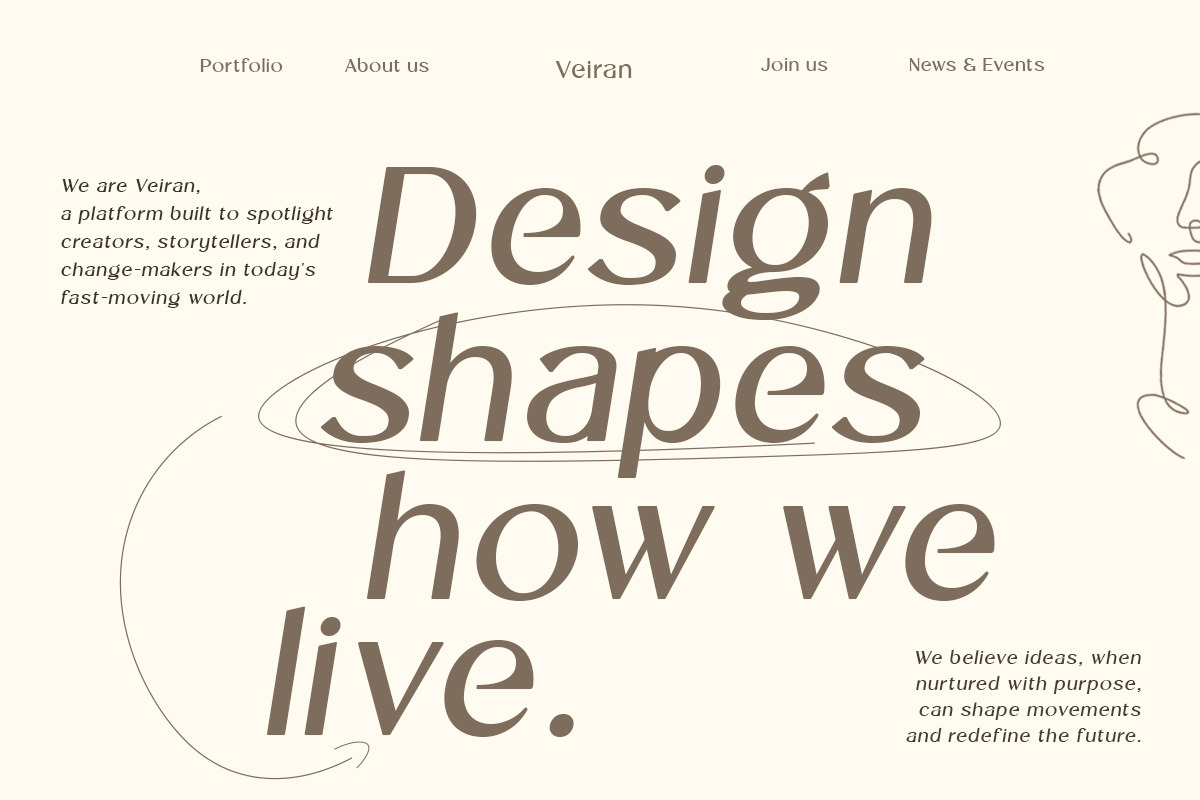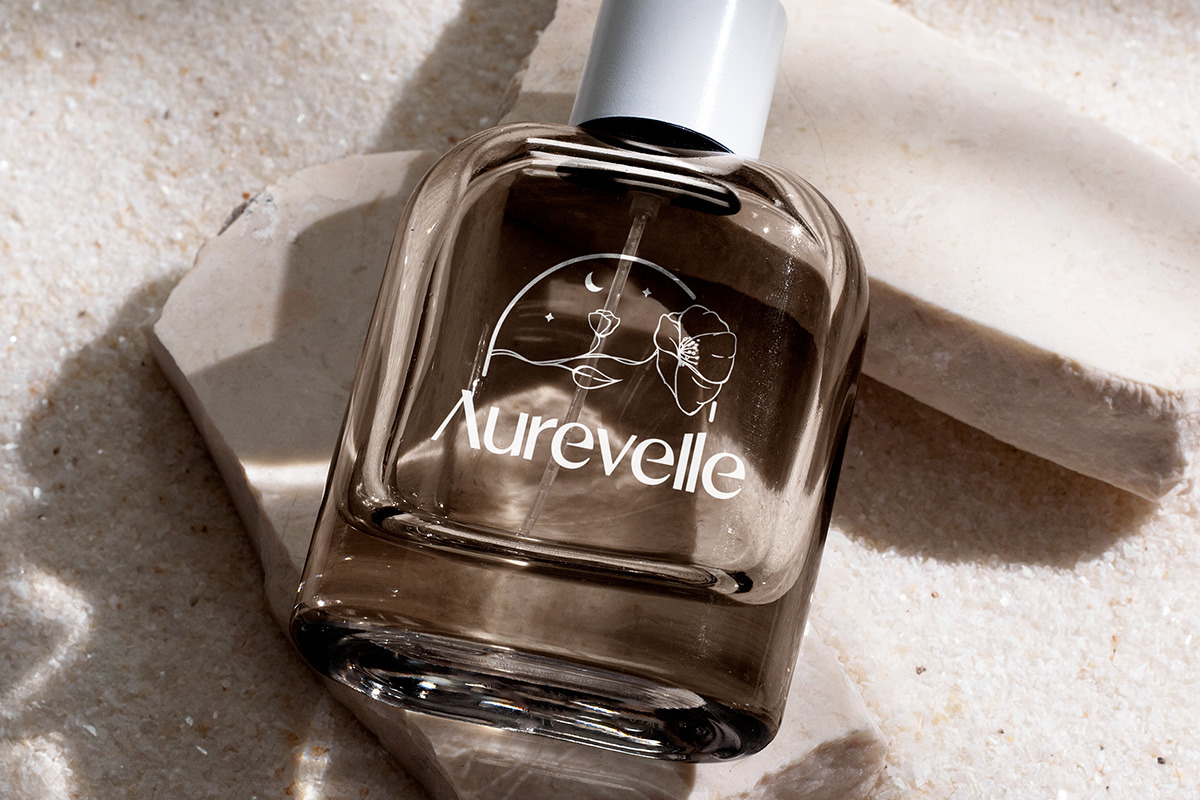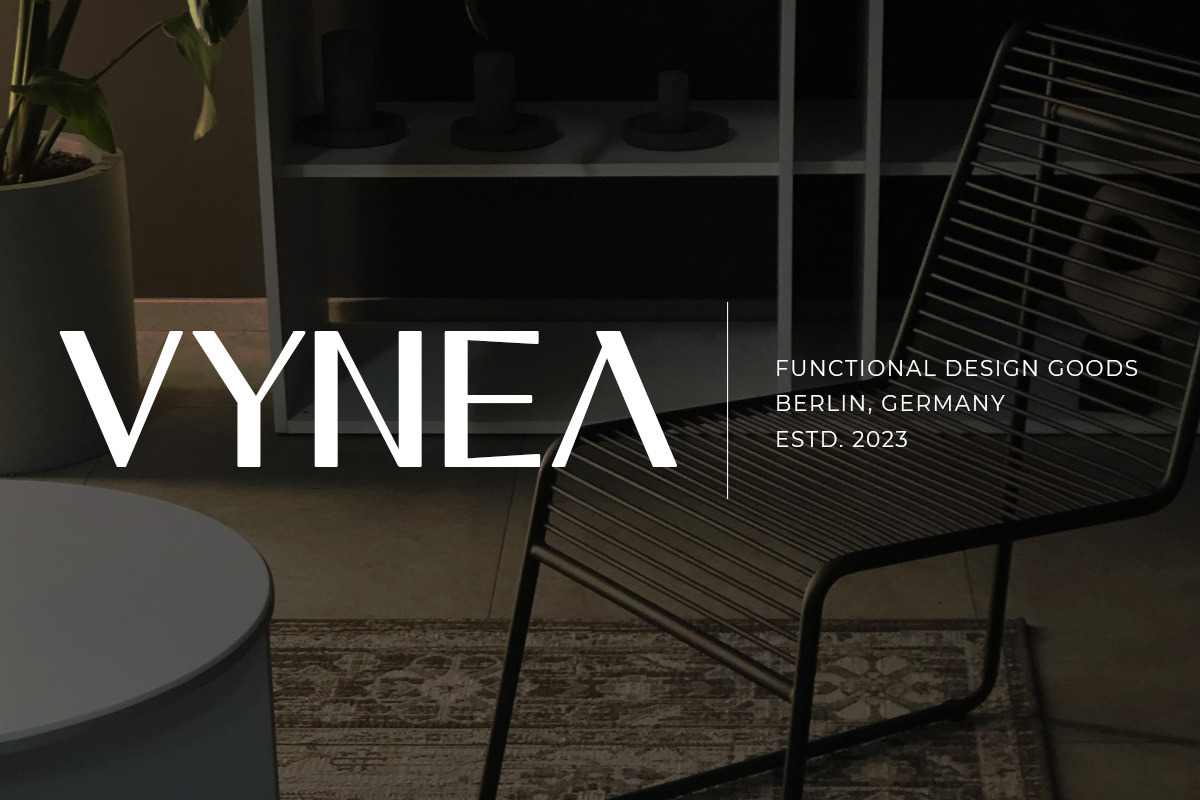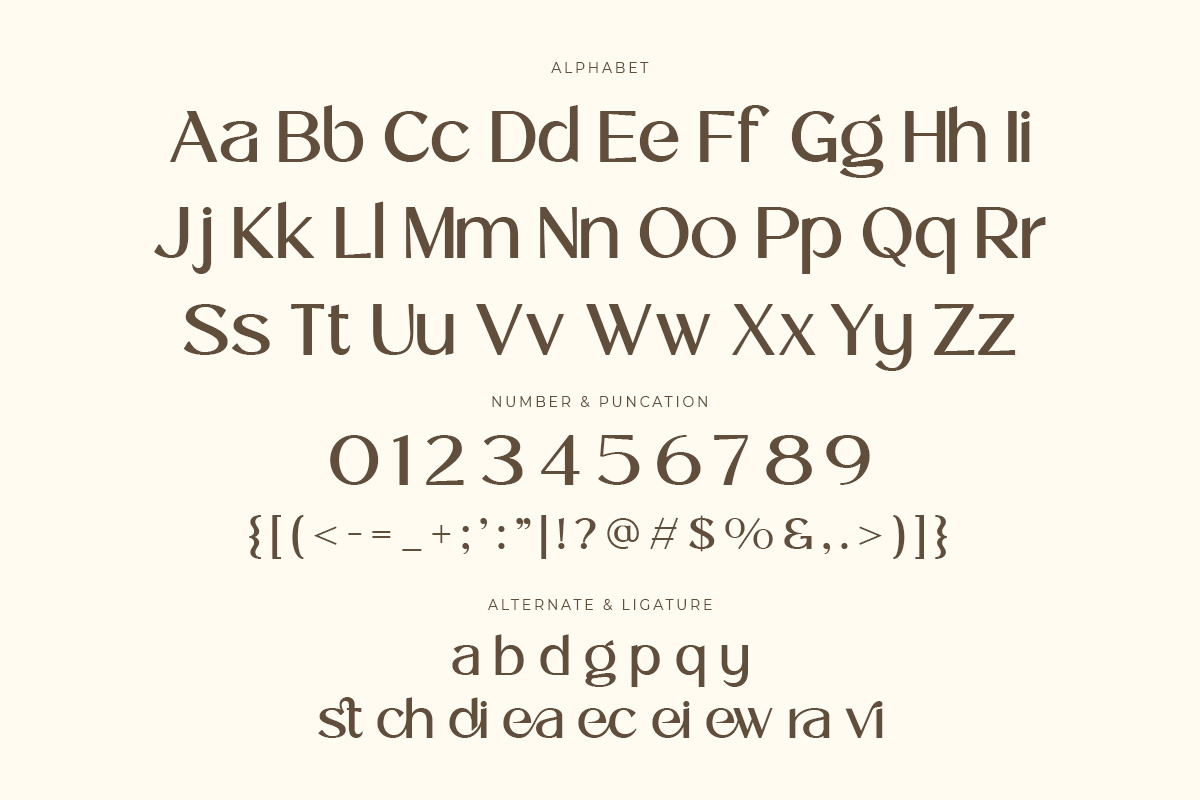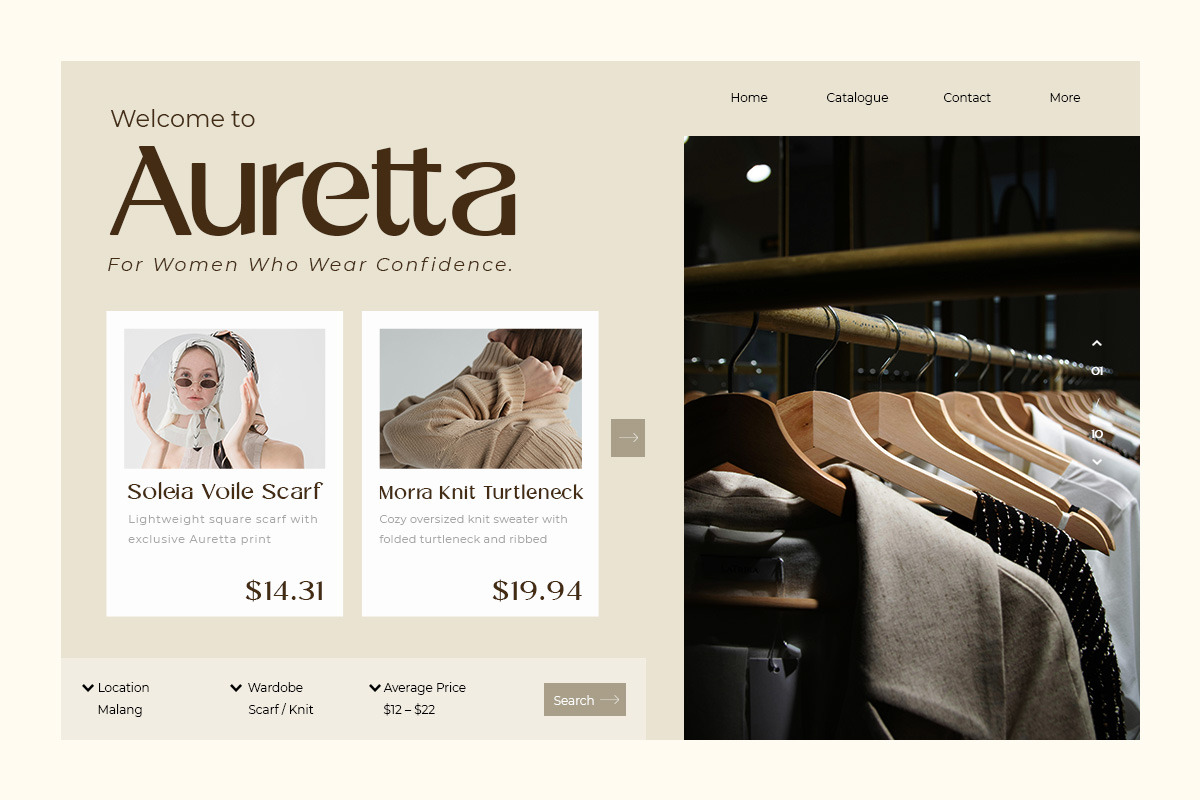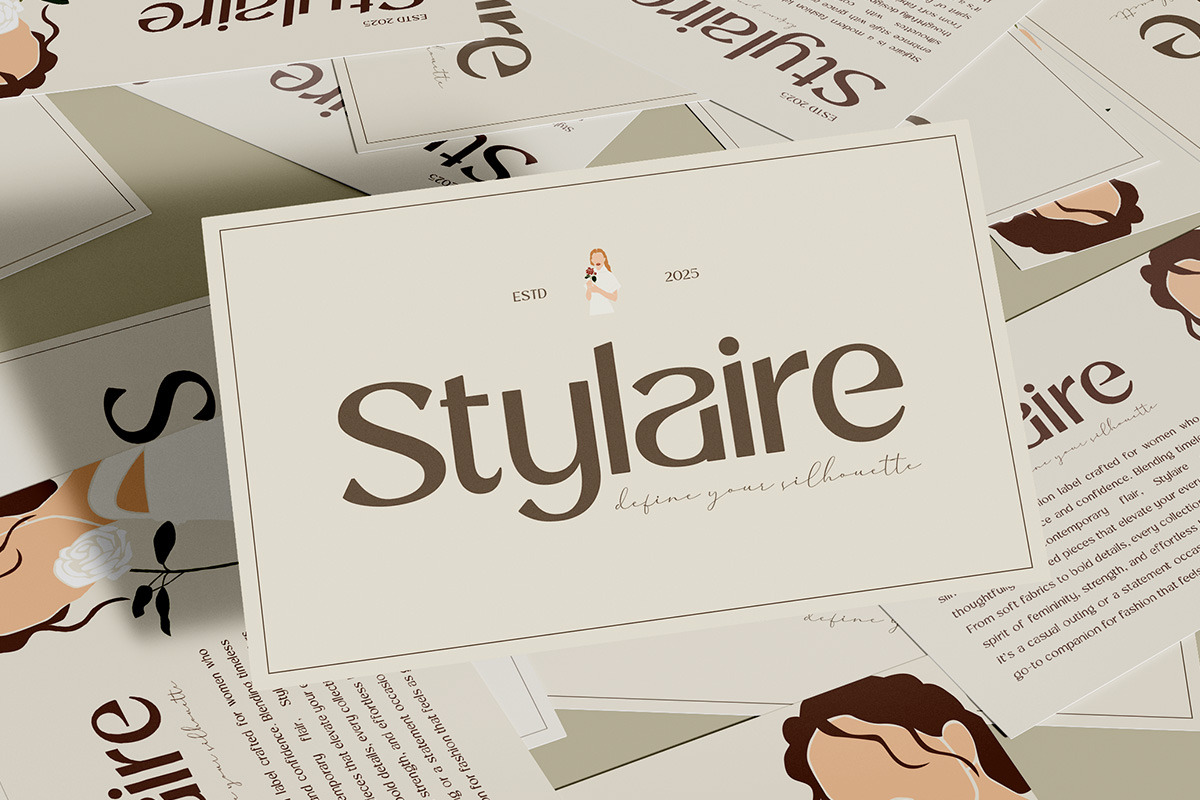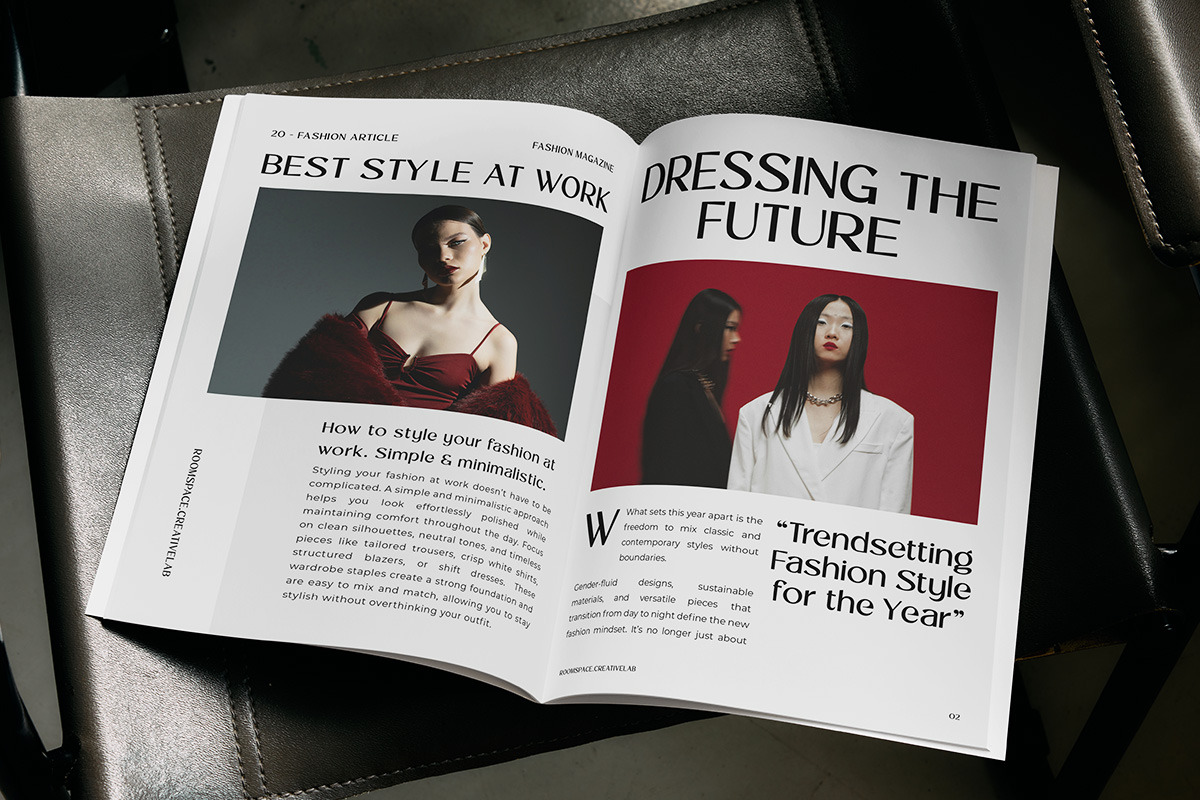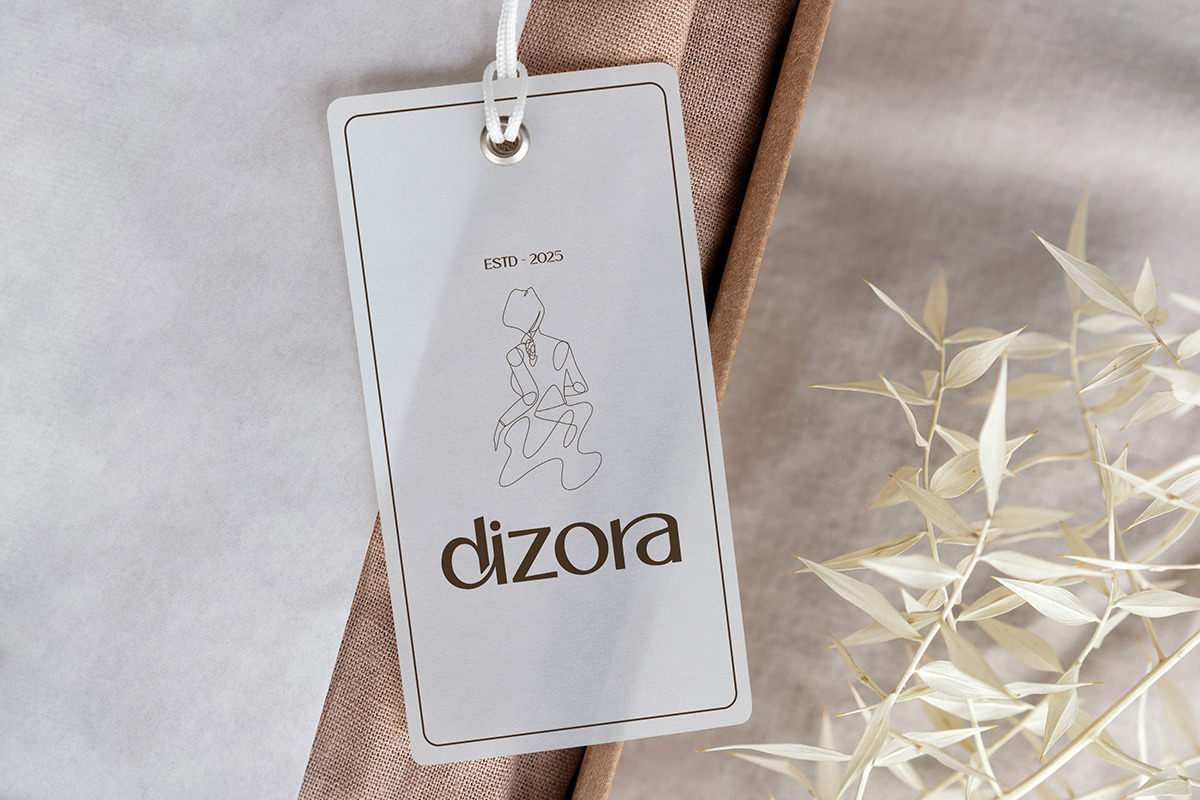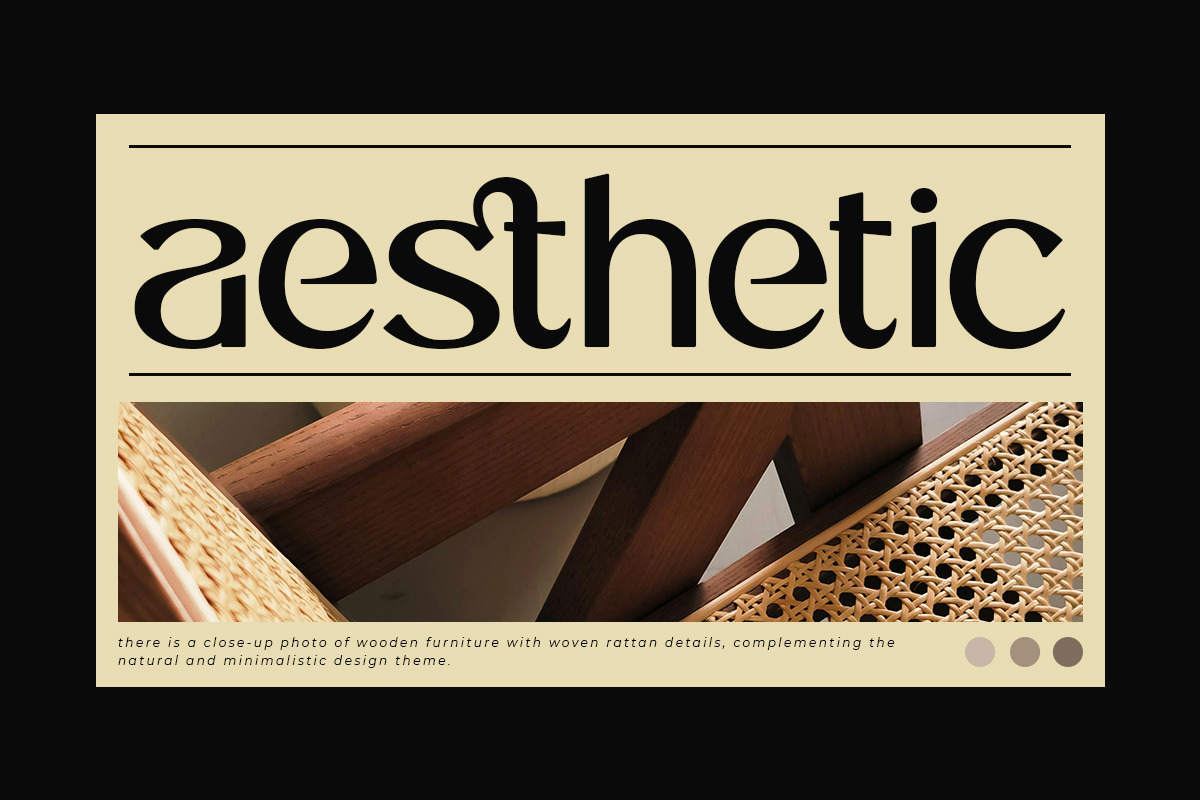
Veiran - Modern Elegant Sans Serif
Veiran is a modern elegant sans-serif font designed for creators who want to make a bold and sophisticated statement. With its sleek curves, clean lines, and balanced letterforms, Veiran is the perfect choice for logos, branding projects, packaging designs, social media posts, and editorial layouts.
Whether you're working on a luxury brand, a fashion project, or a modern website, Veiran brings a touch of class and minimalism to your typography. Its timeless appeal makes it a versatile font for both digital and print designs